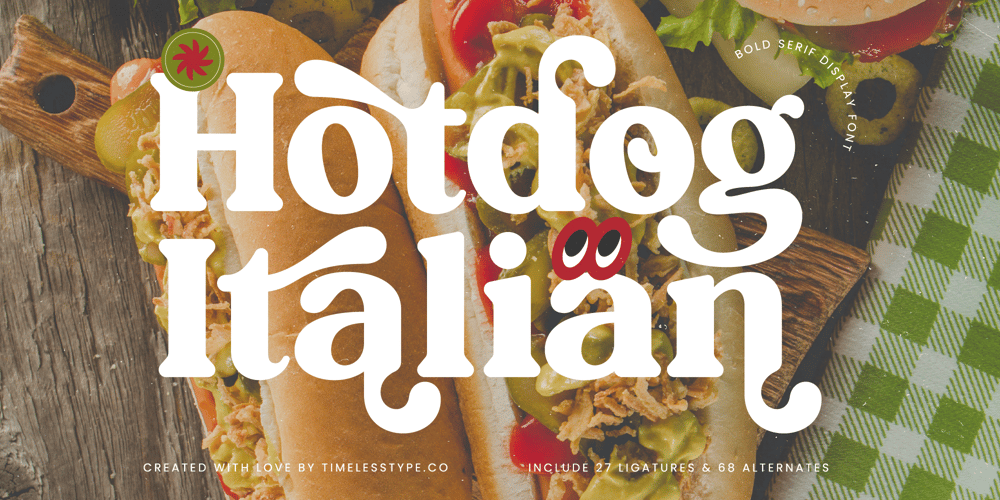
Hotdog Italian
Hotdog Italian font
Hotdog Italian Font Family was designed by Heru Utama Putra and published by Timelesstype Studio. Hotdog Italian contains 2 styles and family package options. Hotdog Italian – Bold Serif Display Font , from Timelesstype , Suitable for any projects such as: logos, branding projects, homeware designs, product packaging, mugs, quotes, posters, shopping bags, t-shirts, book covers, name card, invitation cards, greeting cards, label, photography, watermark, special events, and all your other luxury and beautiful projects that need a Luxury Serif taste.